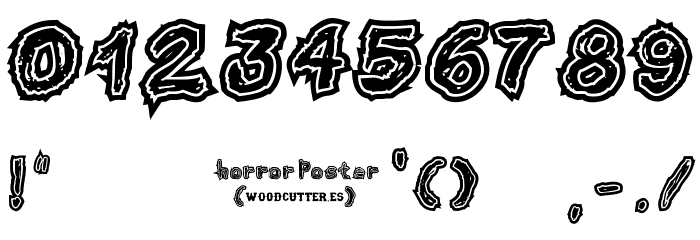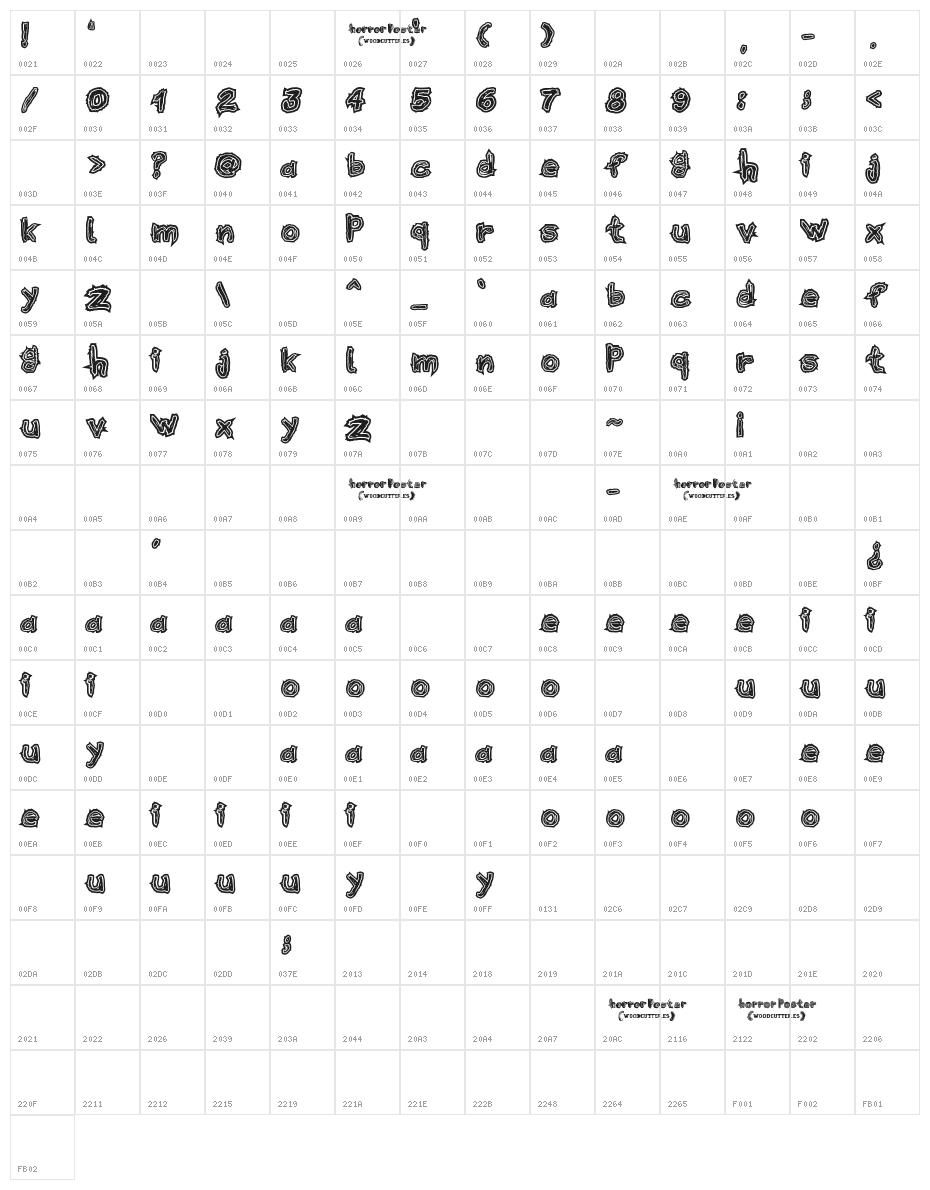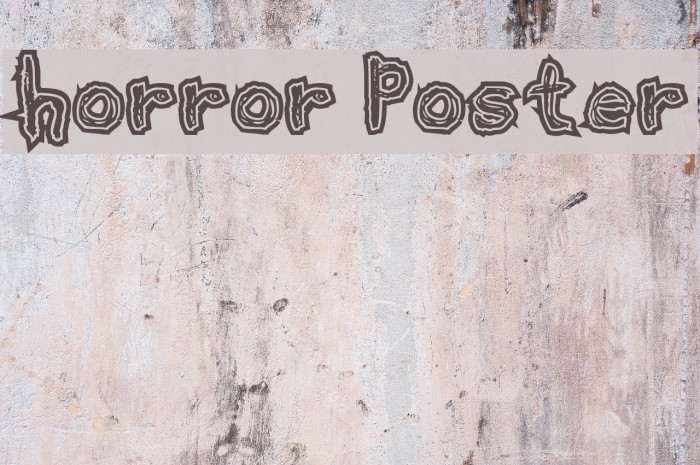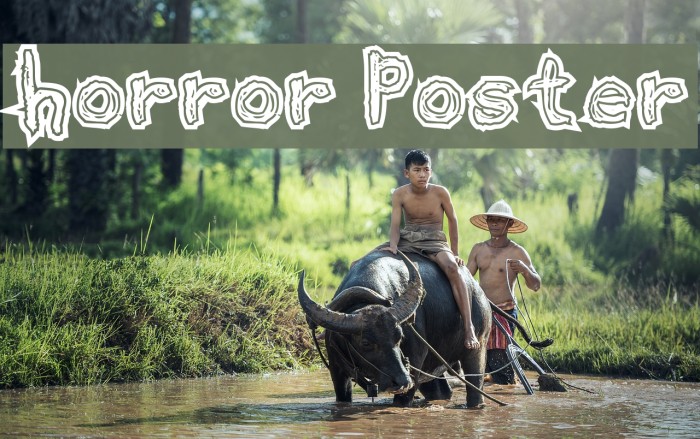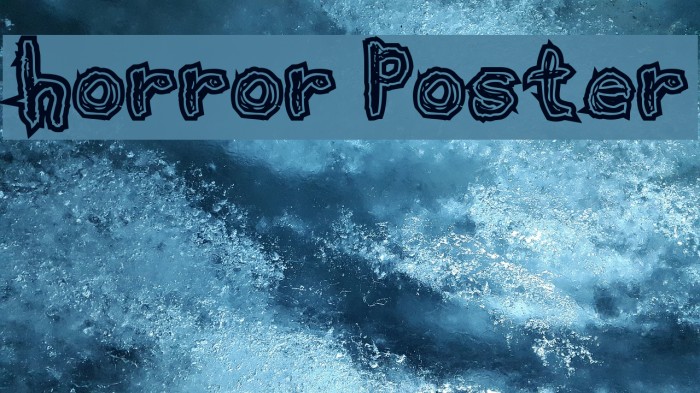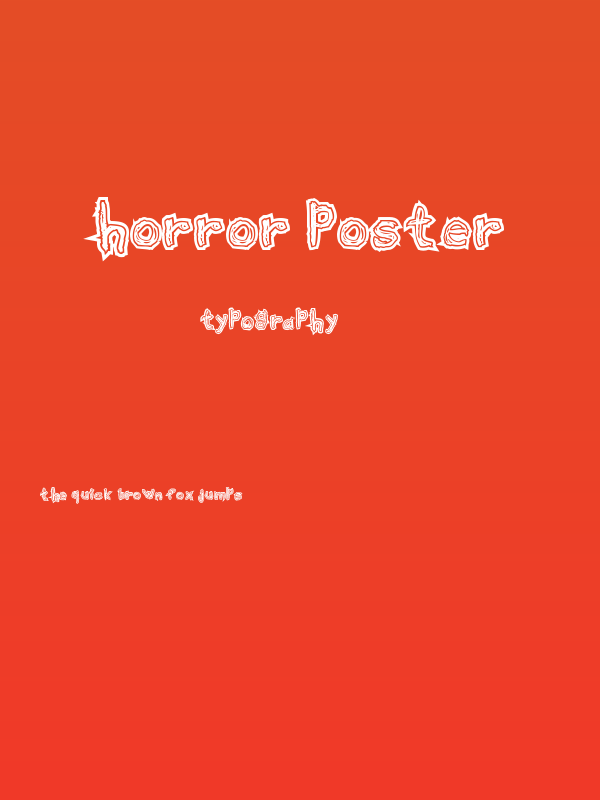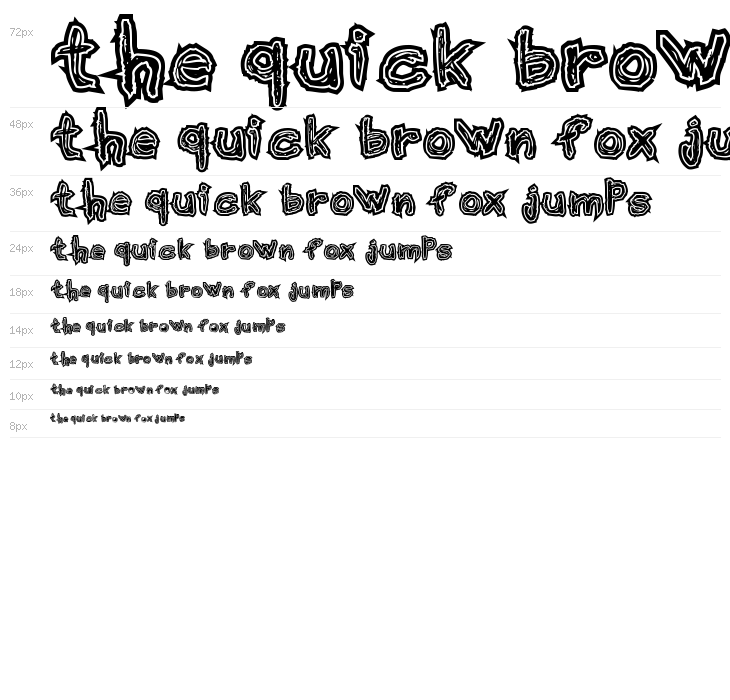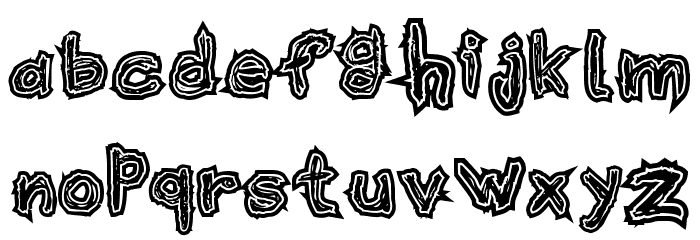
Horror Poster Font
Horror Poster Description
This font features a bold, jagged design that evokes a sense of horror and unease. The characters are irregularly shaped with rough edges, giving them a hand-drawn appearance. The thick outlines and uneven strokes create a chaotic yet visually striking effect, perfect for capturing attention. The font maintains a consistent style across uppercase, lowercase, numbers, and special characters, making it versatile for thematic projects. Its unique style is reminiscent of classic horror movie posters, adding an element of suspense and drama.
| Proposed Projects | Ideal for horror movie posters, Halloween event flyers, spooky-themed merchandise, and video game titles. |